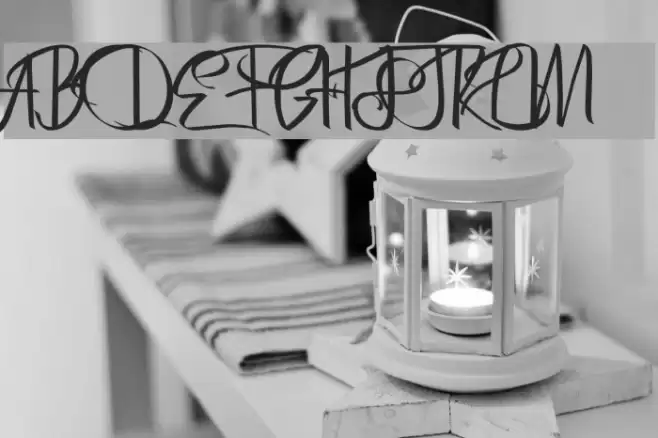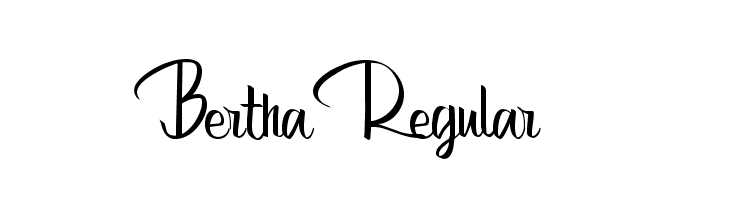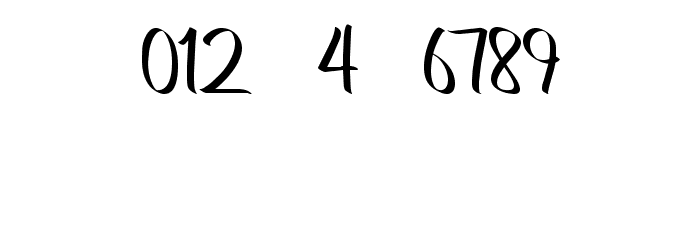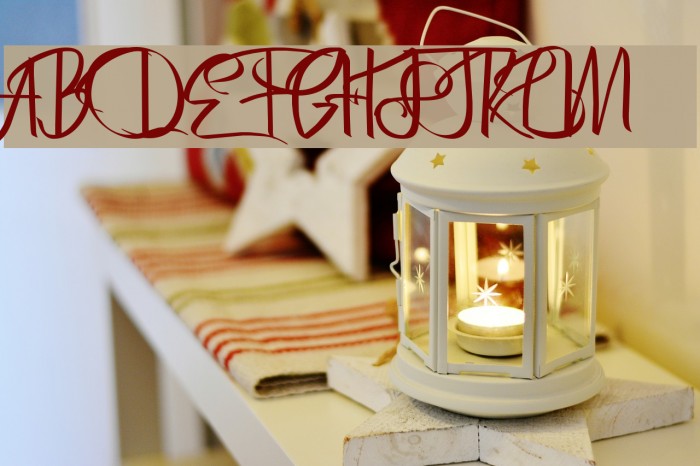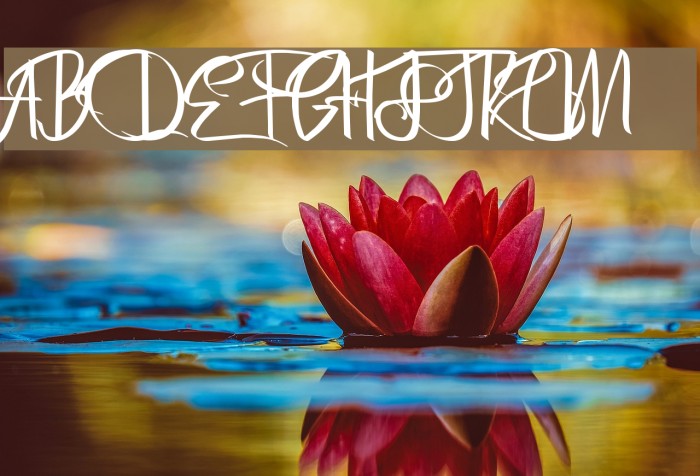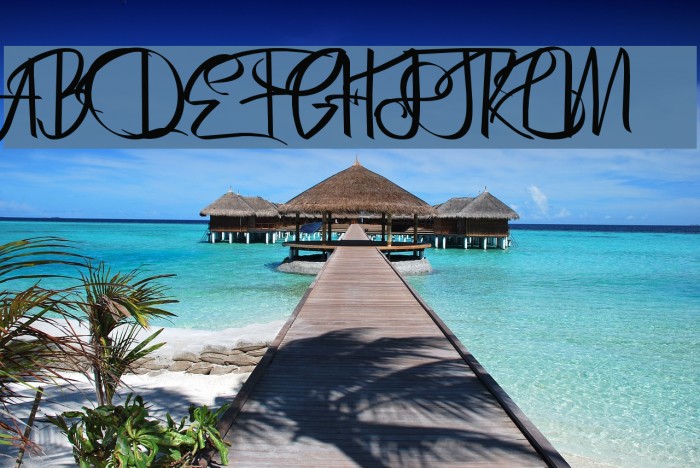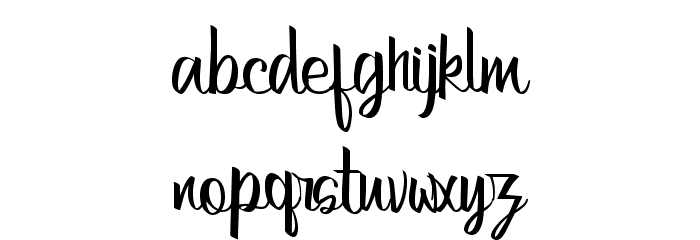
Bertha-Regular Font
Bertha-Regular Description
This font exhibits a unique and artistic script style, characterized by its flowing, cursive letterforms. The uppercase letters are particularly elaborate, with intricate loops and swirls that give them a decorative flair. The lowercase letters maintain a more consistent and readable form, though they still carry a touch of elegance with their slight slant and smooth curves. The numerals are distinct and maintain the same stylistic elements, ensuring consistency throughout. Special characters are creatively designed, adding to the overall aesthetic appeal. This font is ideal for projects that require a touch of sophistication and creativity.
An artistic script font with flowing, decorative letterforms from Uncategorized fonts.